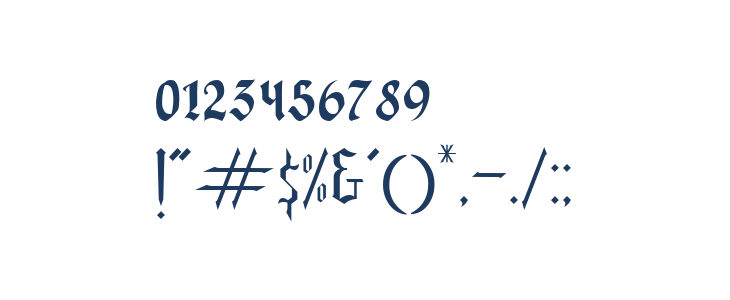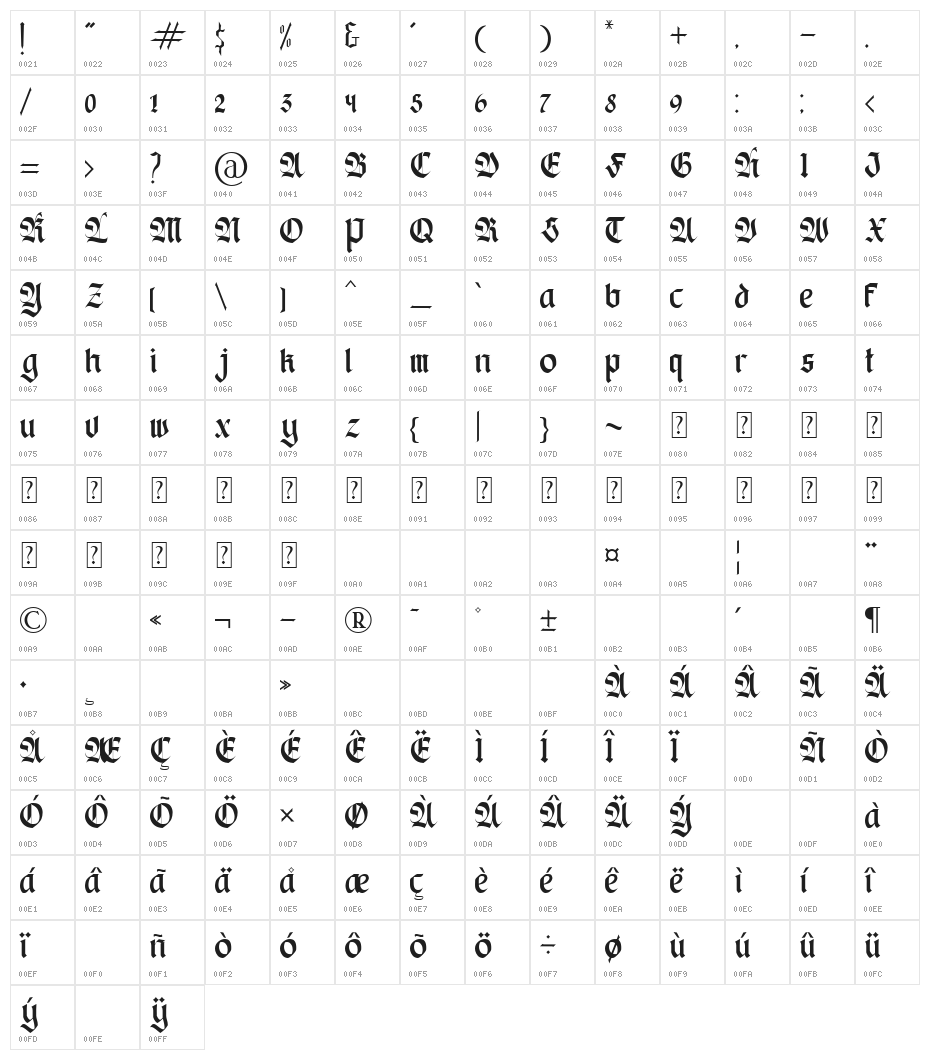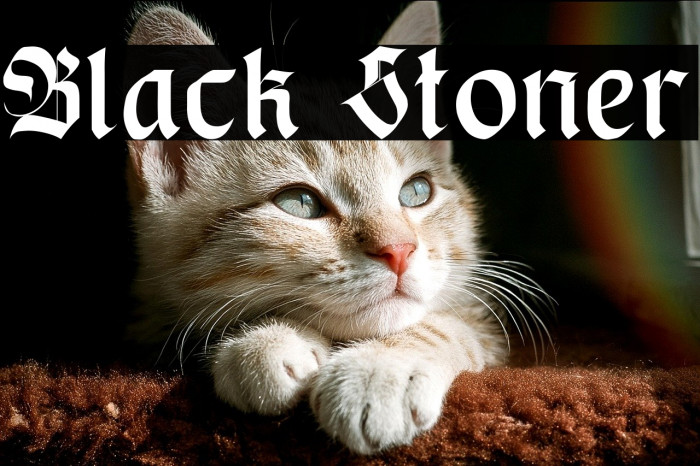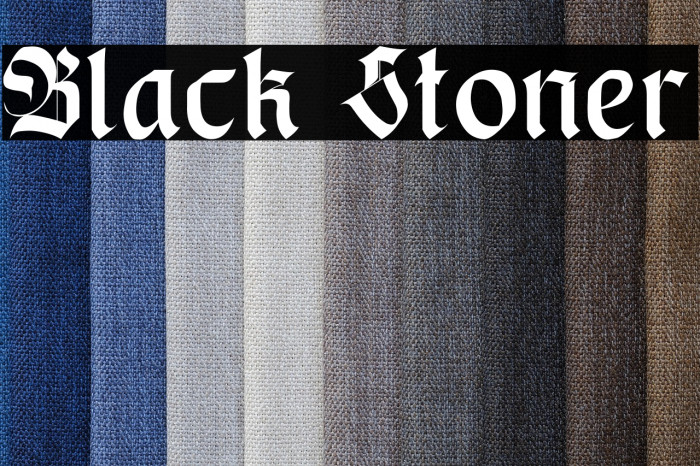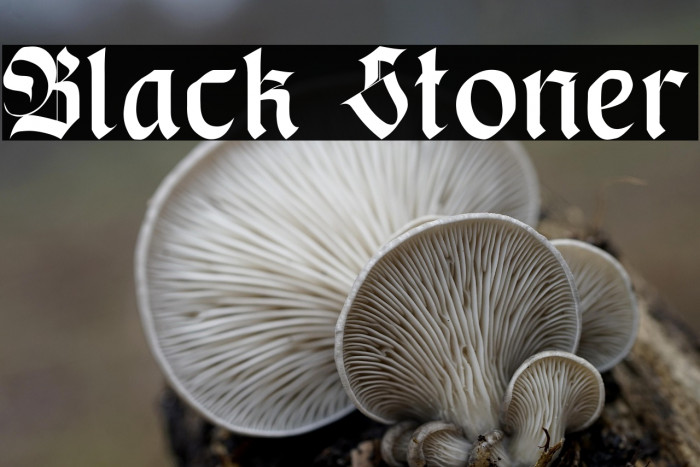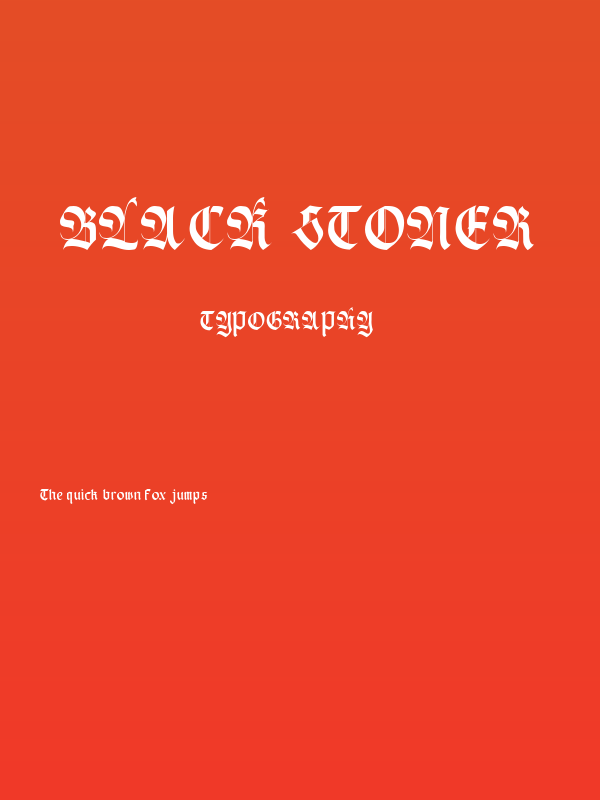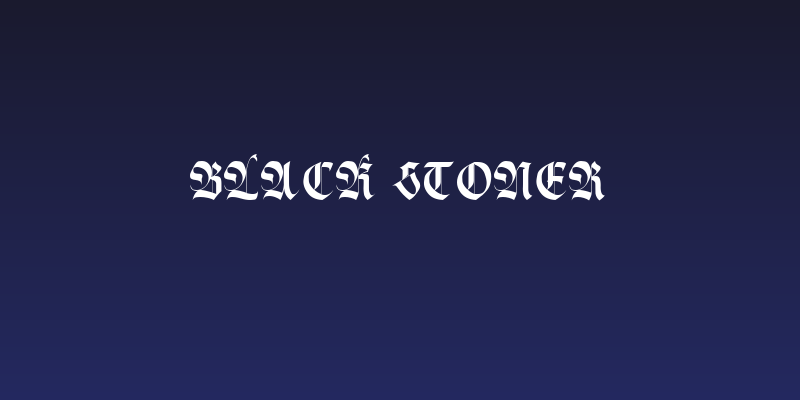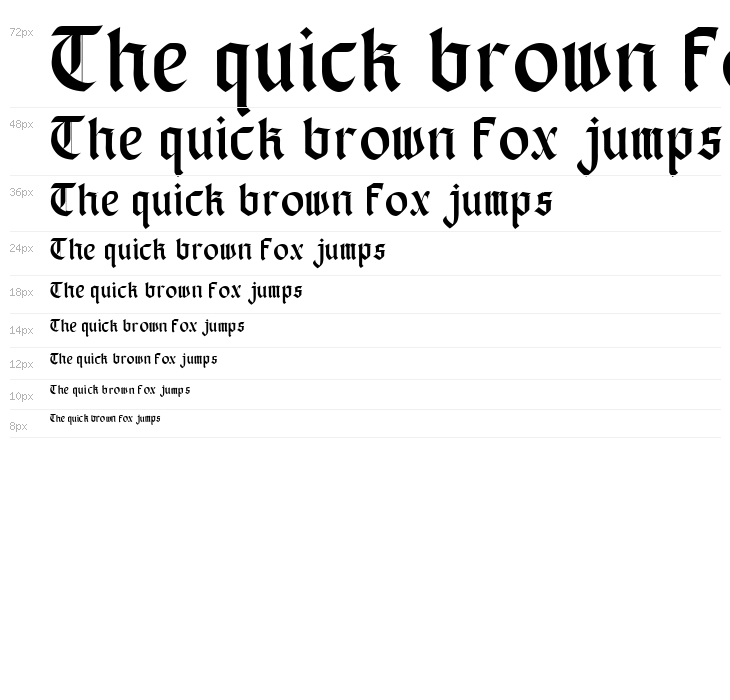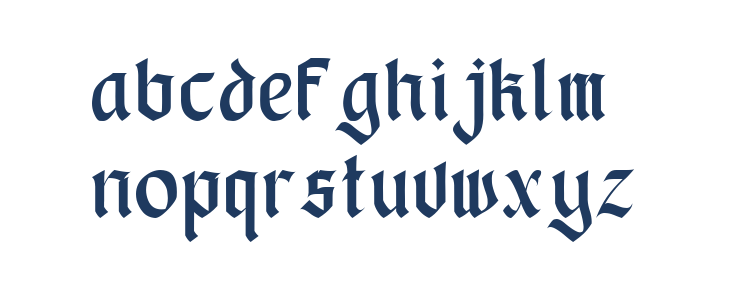
Black Stoner Font
Black Stoner Description
This font features a classic blackletter style, characterized by its intricate and ornate letterforms. The uppercase letters exhibit sharp, angular strokes with a distinct medieval aesthetic, while the lowercase letters maintain a consistent flow with pronounced curves and pointed edges. The numerals and special characters are designed to complement the overall gothic appearance, making them suitable for traditional and historical contexts. The font's bold presence and high contrast in stroke thickness enhance its readability and visual impact.
Overall StyleVintage
Use CaseLogos, Headlines, Decorative text
Proposed ProjectsIdeal for projects requiring a historical or gothic touch, such as book covers, posters, or branding for vintage-themed events.